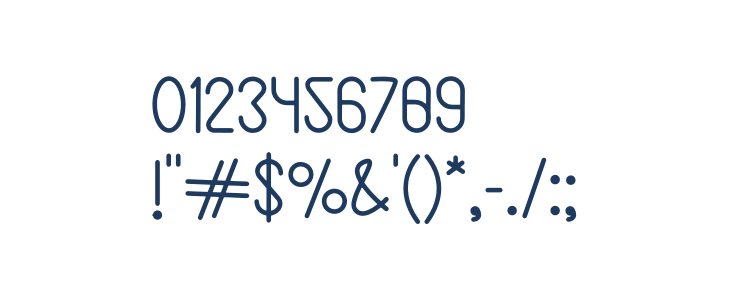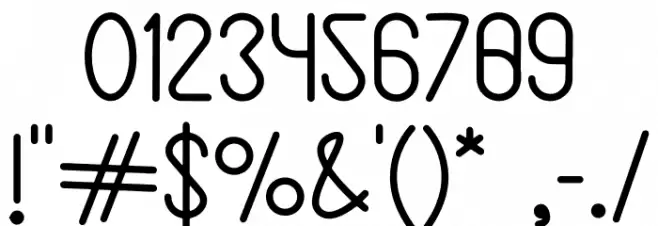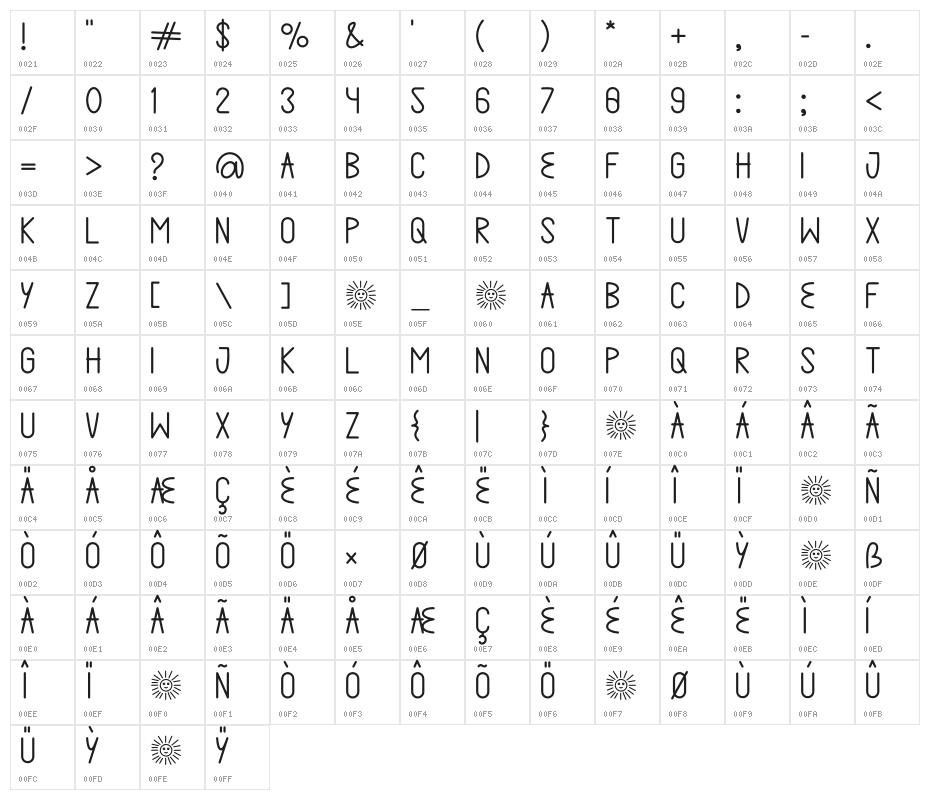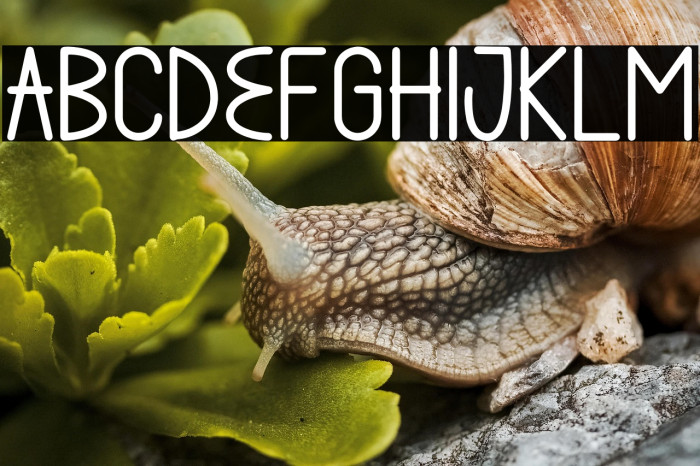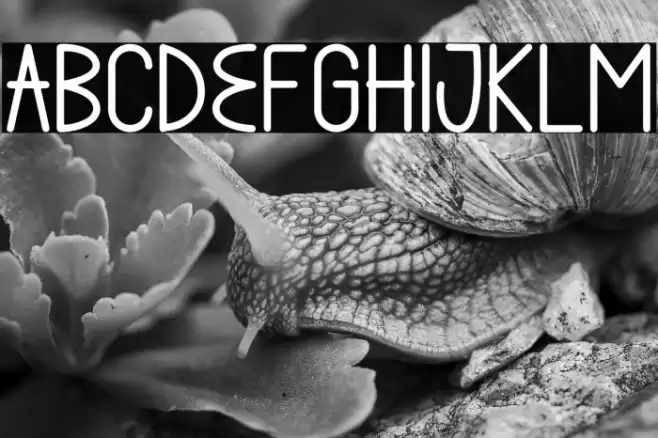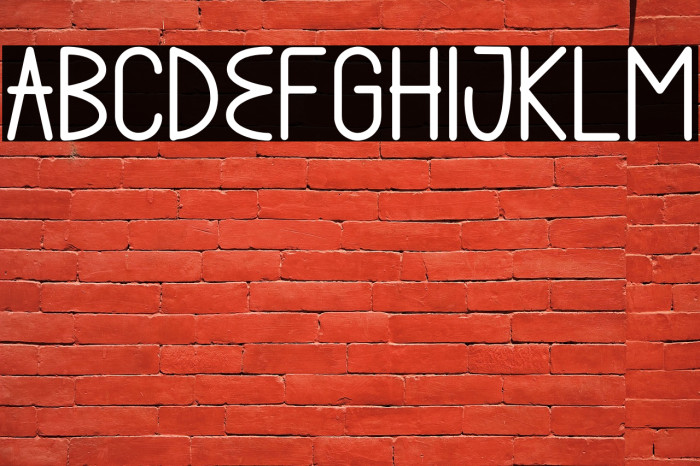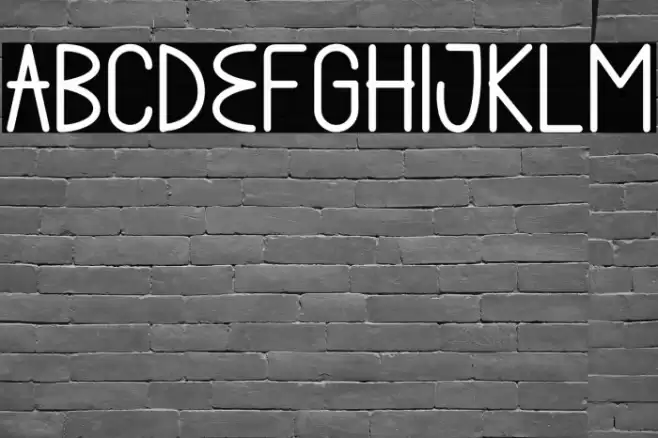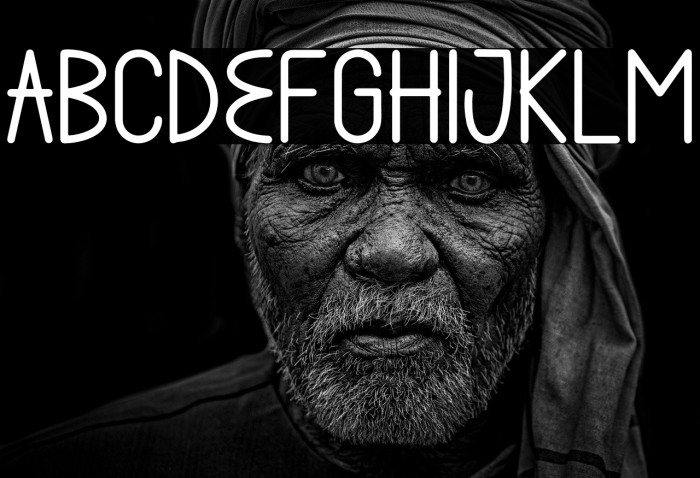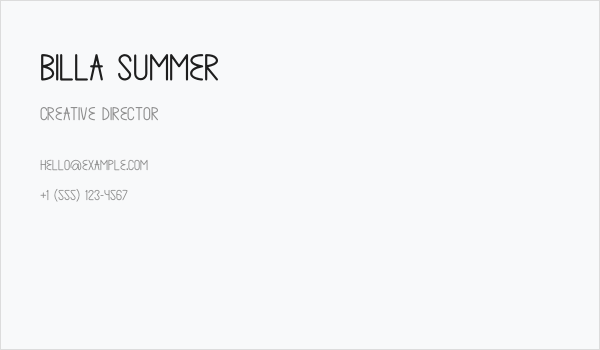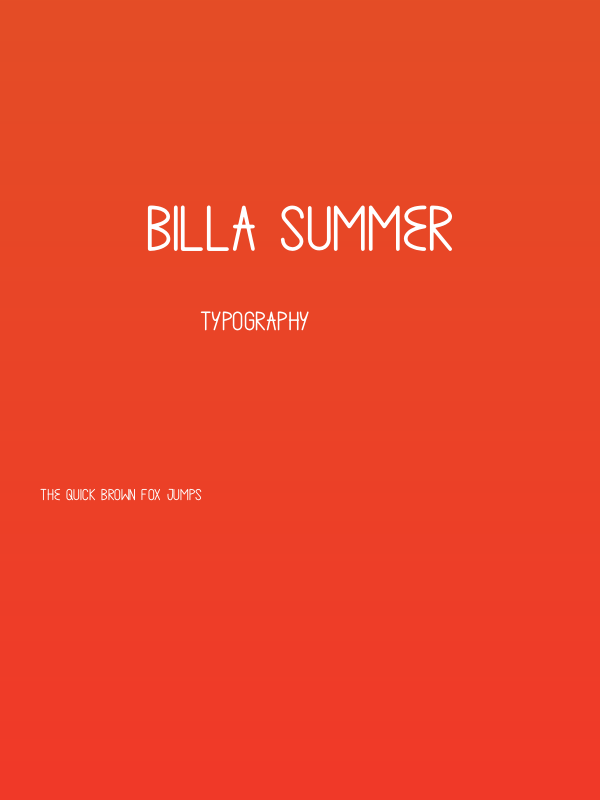
Billa Summer Font
Billa Summer Description
This font features a playful and modern design with rounded edges and a handwritten feel. The characters are uniformly tall and narrow, giving it a unique and approachable appearance. The uppercase and lowercase letters maintain a consistent style, with smooth curves and a friendly demeanor. The numerals are clear and easy to read, complementing the overall aesthetic. Special characters are included, maintaining the same playful style, making this font versatile for various uses. Its simplicity and charm make it suitable for projects that require a personal touch.
Use CaseHeadlines, Logos, Casual Text
Proposed ProjectsIdeal for children's books, casual branding, greeting cards, and playful posters.